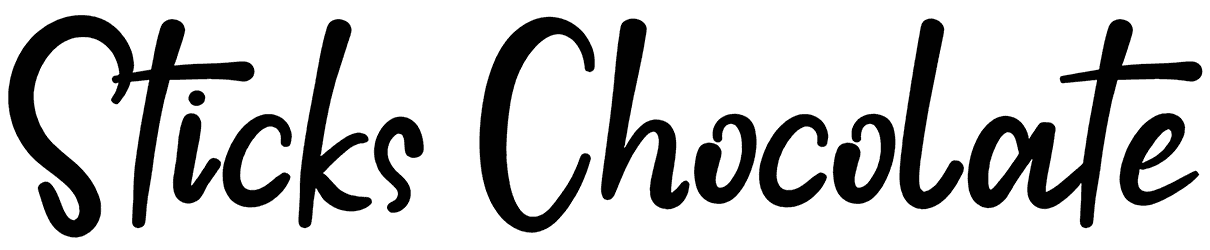
Sticks Chocolate Font
To make sure your layout has a realistic and smooth mood, choosing a handwritten font like this one will be a perfect decision. The Sticks Chocolate font has a modern and cute vibe that would be perfect for many projects, such as a snack logo design or a party invitation card. With an almost full cover of characters, this cursive font will be useful for any short or long text.